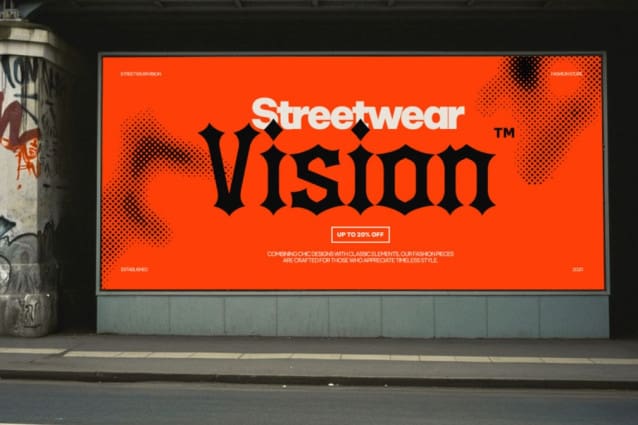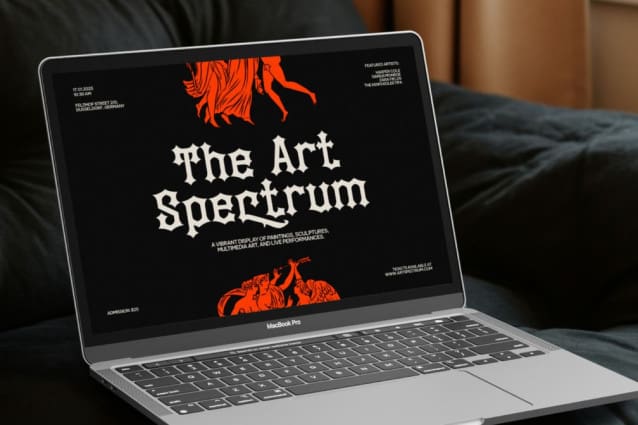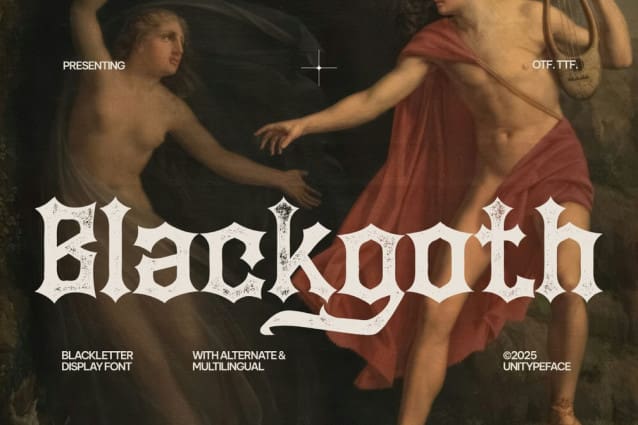
Black Goth Font
Black Goth Font Heavy stroke and vintage character. To give you an extra creative work. Black Goth Font display font support multilingual language. This font is good for logo design, Social media, Movie Titles, Books Titles, a short text even a long text letter and good for your secondary text font with script or serif. Make a stunning work with Black Goth Font.